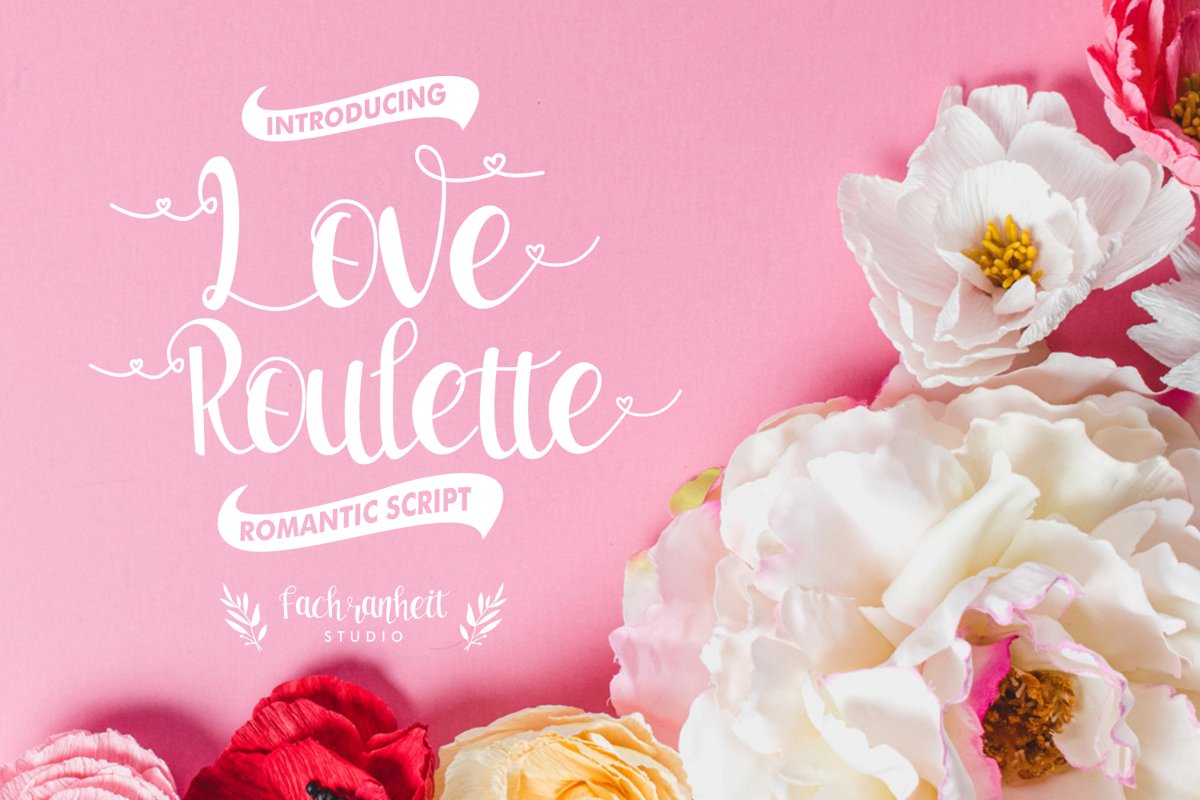
Love Roulette
The Love Roulette is an Romantic Script typeface. It has regular characters. It can be used for logos, t-shirts, quotes, badge, branding, headers, labels, packaging and much more!